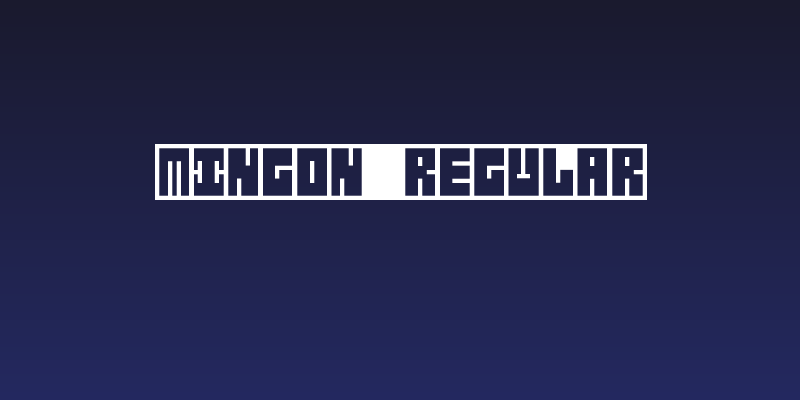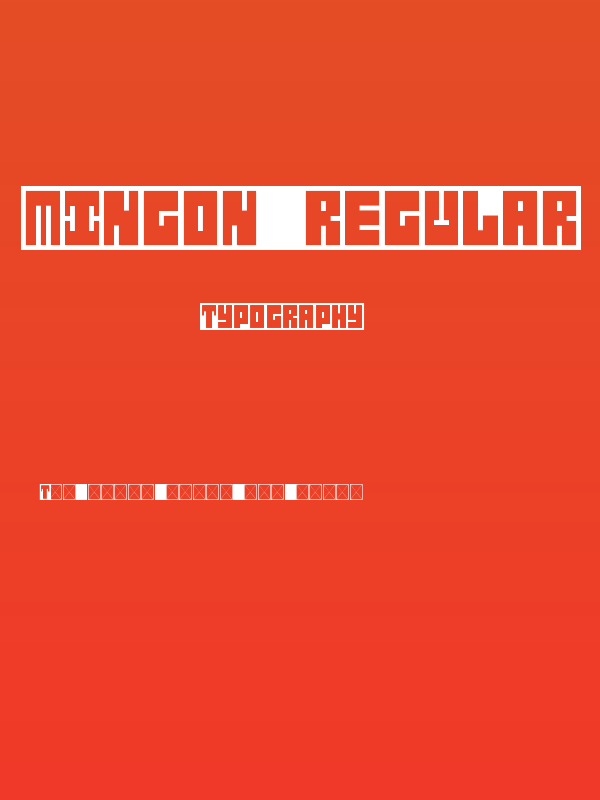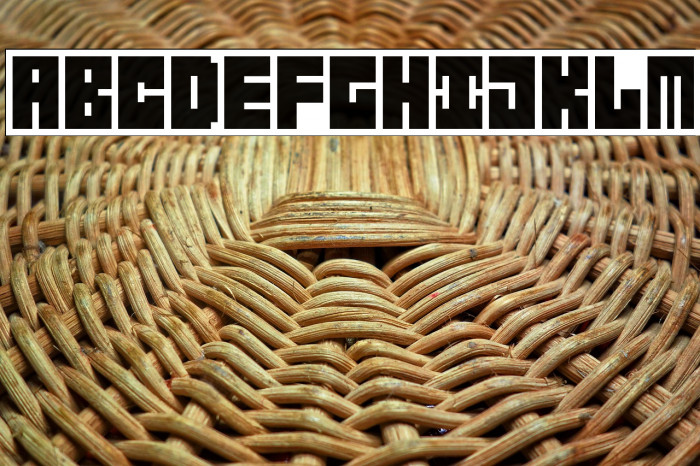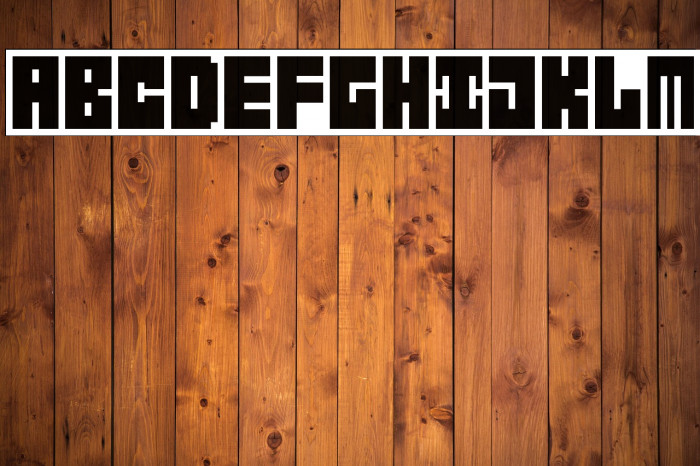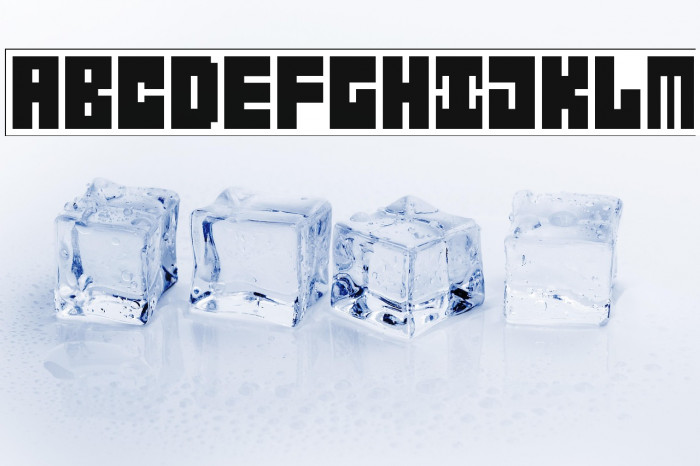
mingon Regular Font
mingon Regular Description
This font features a bold, geometric design with a strong emphasis on rectangular shapes and sharp angles. Each character is enclosed within a square, creating a uniform and structured appearance. The uppercase letters are particularly striking, with a blocky, architectural feel that conveys strength and stability. The design is highly stylized, making it ideal for projects that require a modern and impactful look. The absence of curves and the consistent use of straight lines give it a futuristic and digital aesthetic.
modern and geometric
| Use Case | Logos, Headlines |
| Proposed Projects | Ideal for video game titles, tech company logos, and futuristic posters. |